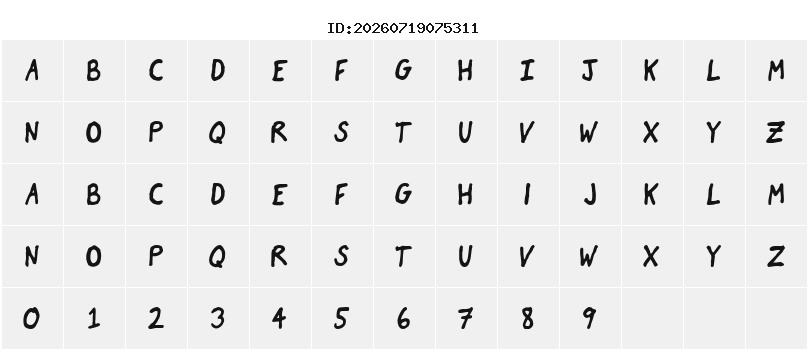
Comic James Preview
• Font Name: Comic James
• Full Font Name: Comic James
About Comic James.ttf
Comic James.ttf is a modern, elegant sans-serif font designed for ultimate readability and visual harmony. Perfect for branding, headlines, web design, and print materials.